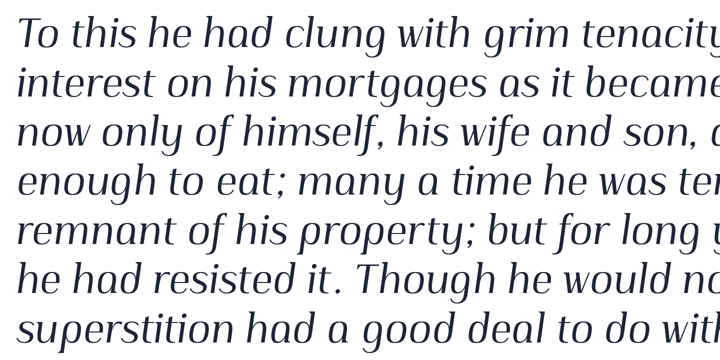
Publio™
by Tour De Force
The Publio Font Family was designed by Dusan Jelesijevic and published by Tour De Force. Publio contains 2 styles and family package options.
Publio is small unusual and unique font family, characterized with sharp, triangular semi-serifs.